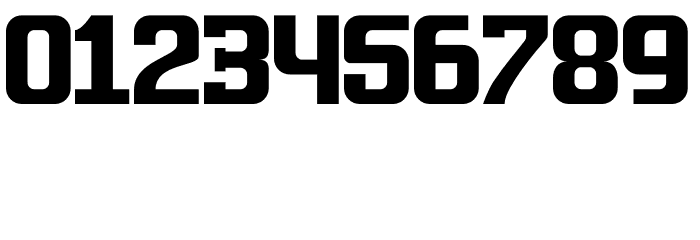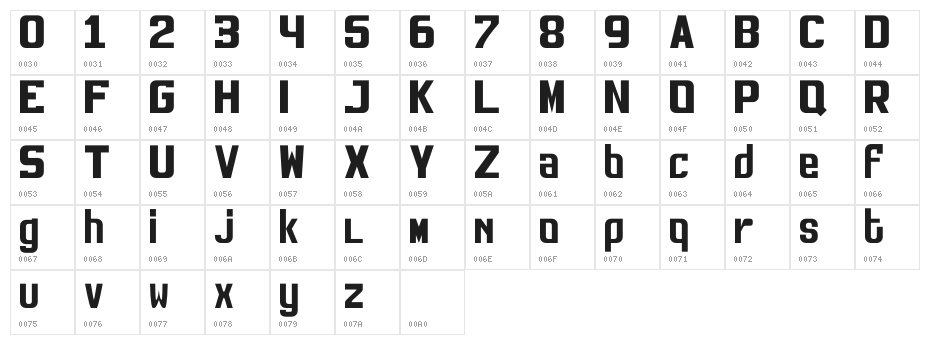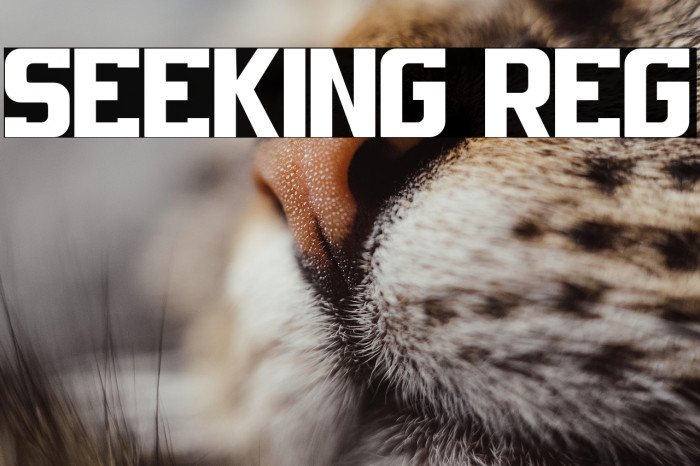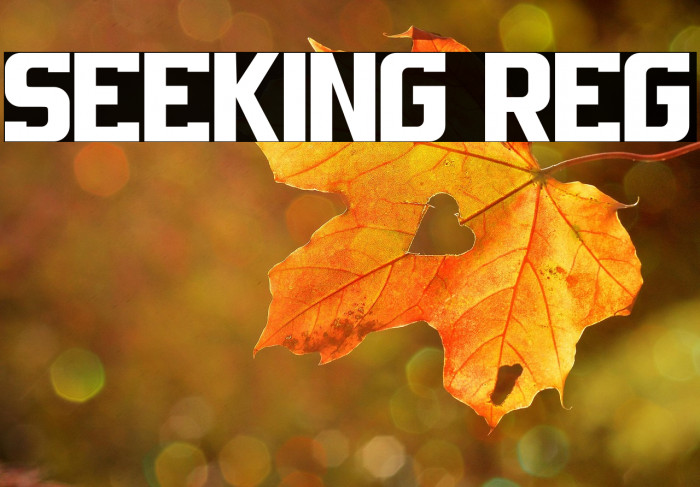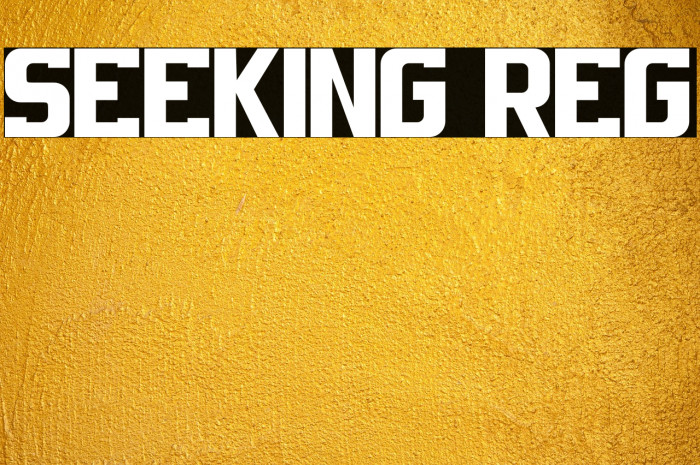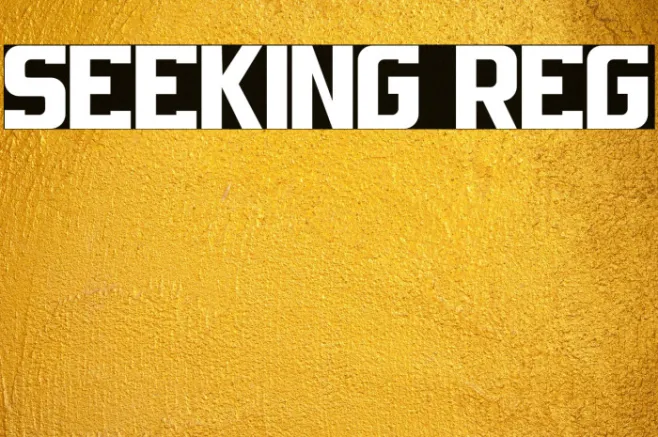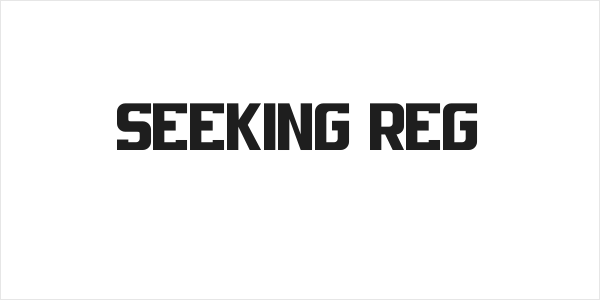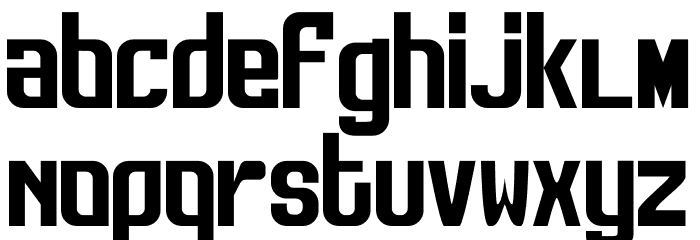
SEEKING REG Font
SEEKING REG Description
This font features a bold and robust design with strong geometric shapes and a modern aesthetic. The uppercase letters are uniform in height, with a slight angularity that adds a dynamic edge to the overall appearance. The lowercase letters maintain a consistent style, complementing the uppercase with their own distinct flair. The numerals are equally bold, ensuring clarity and readability. This font's design is characterized by its thick strokes and minimal contrast, making it ideal for impactful and attention-grabbing text. The overall style is modern and assertive, suitable for a variety of design applications.